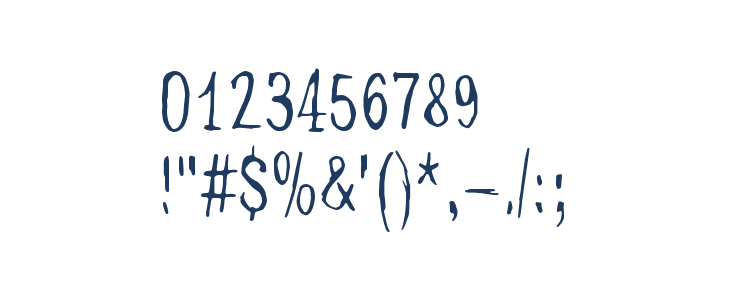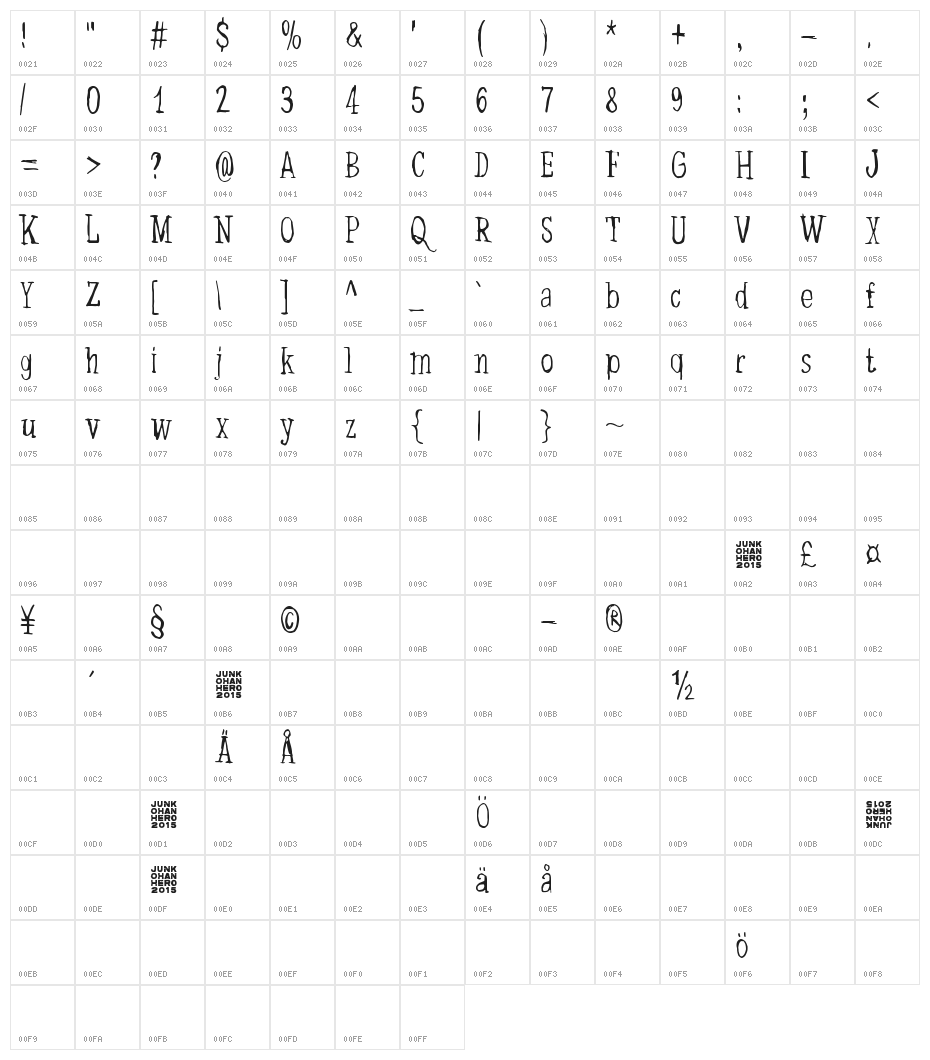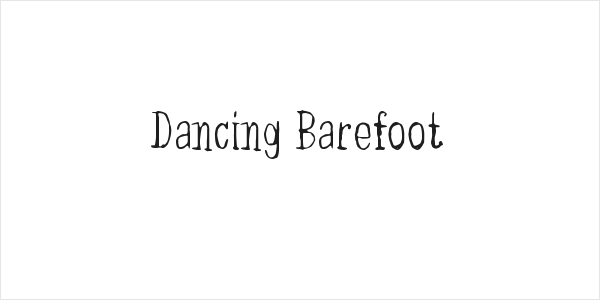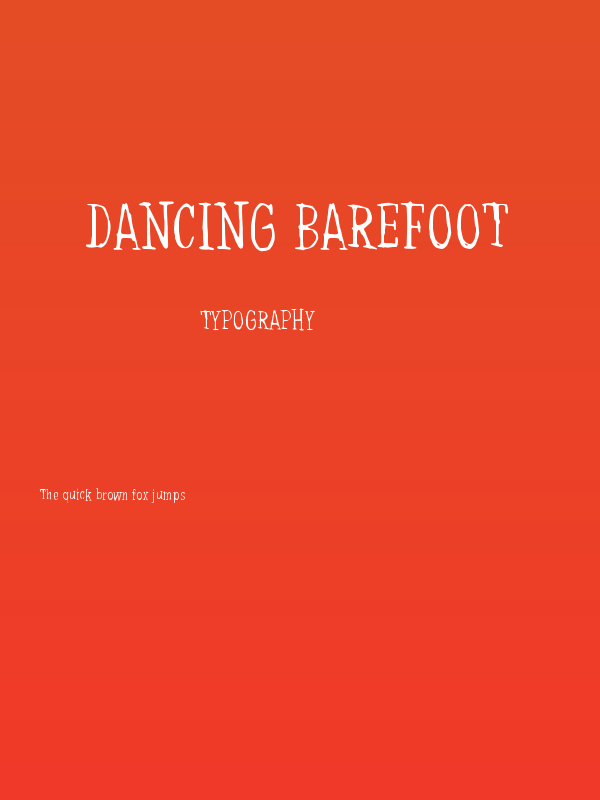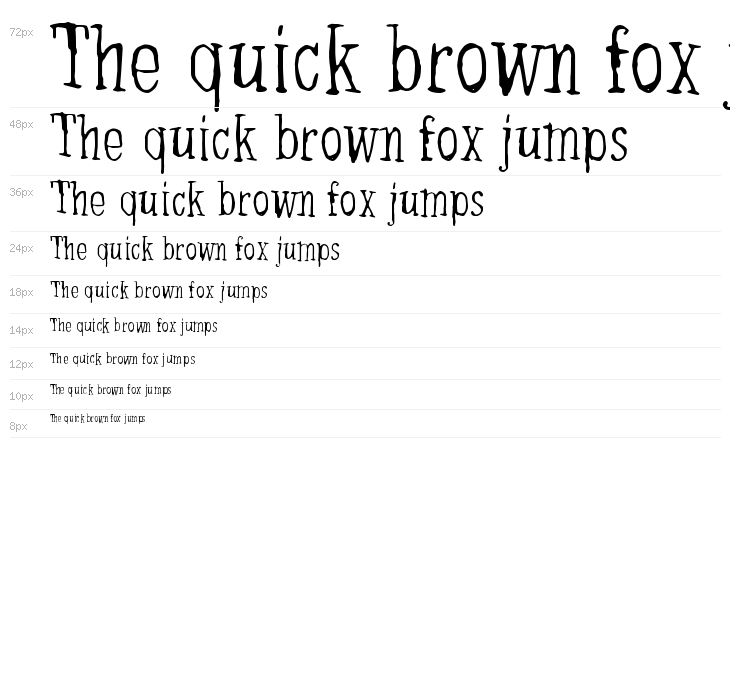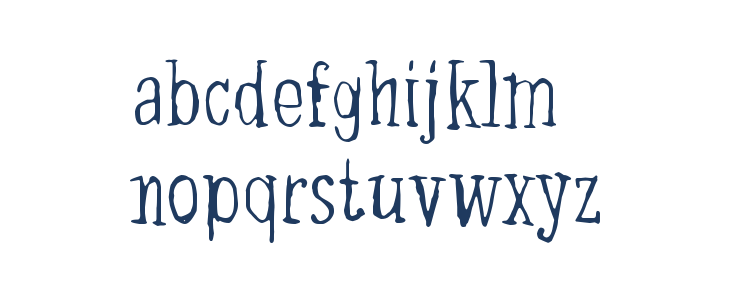
Dancing Barefoot Font
Dancing Barefoot Description
This font features a whimsical and playful design, characterized by its irregular and slightly uneven strokes. The letters have a hand-drawn quality, giving them a unique and artistic appearance. The uppercase letters are bold and prominent, while the lowercase letters maintain a consistent style with a slightly narrower form. The numbers and special characters follow the same playful aesthetic, making the font suitable for creative and informal projects. Its distinct style adds a touch of personality and charm, making it ideal for designs that require a casual and artistic feel.
| Proposed Projects | Ideal for children's books, creative posters, artistic branding, and informal invitations. |